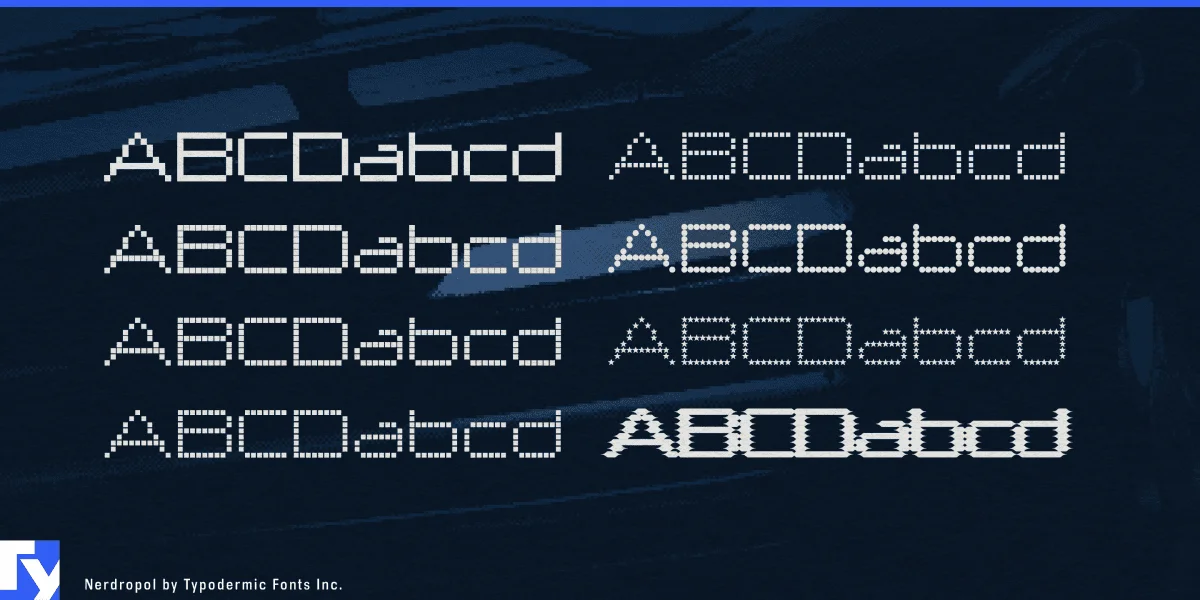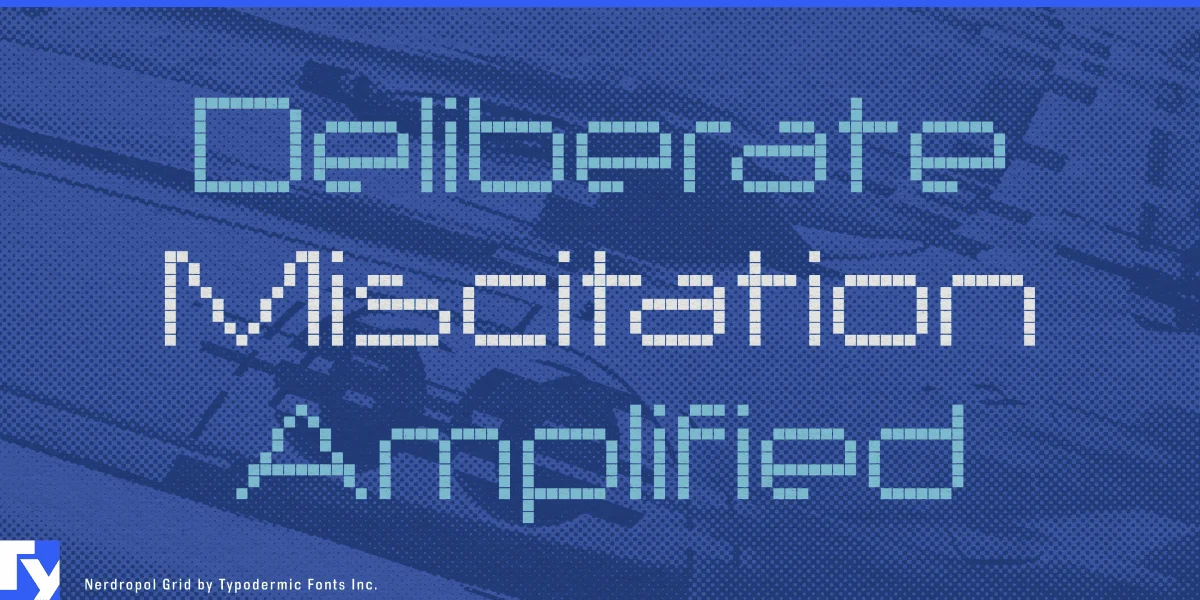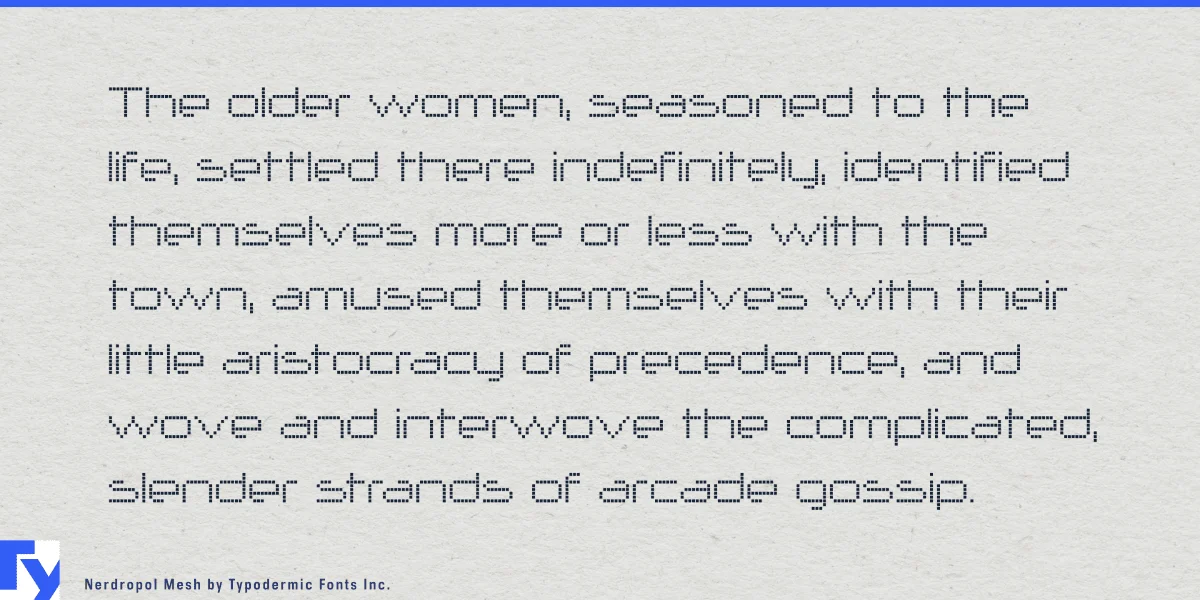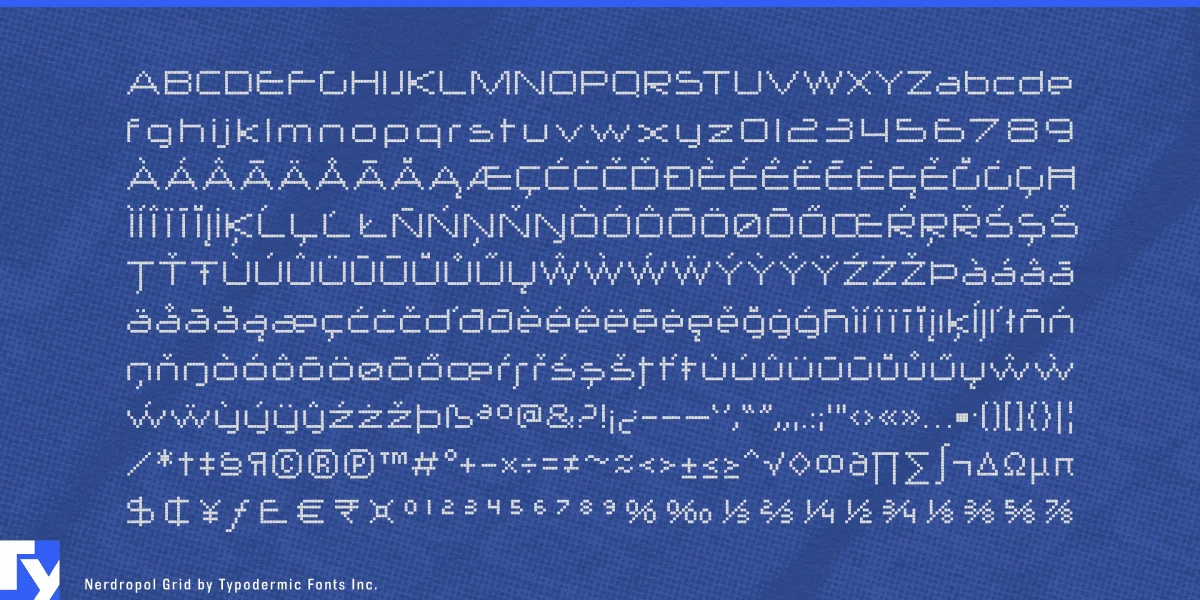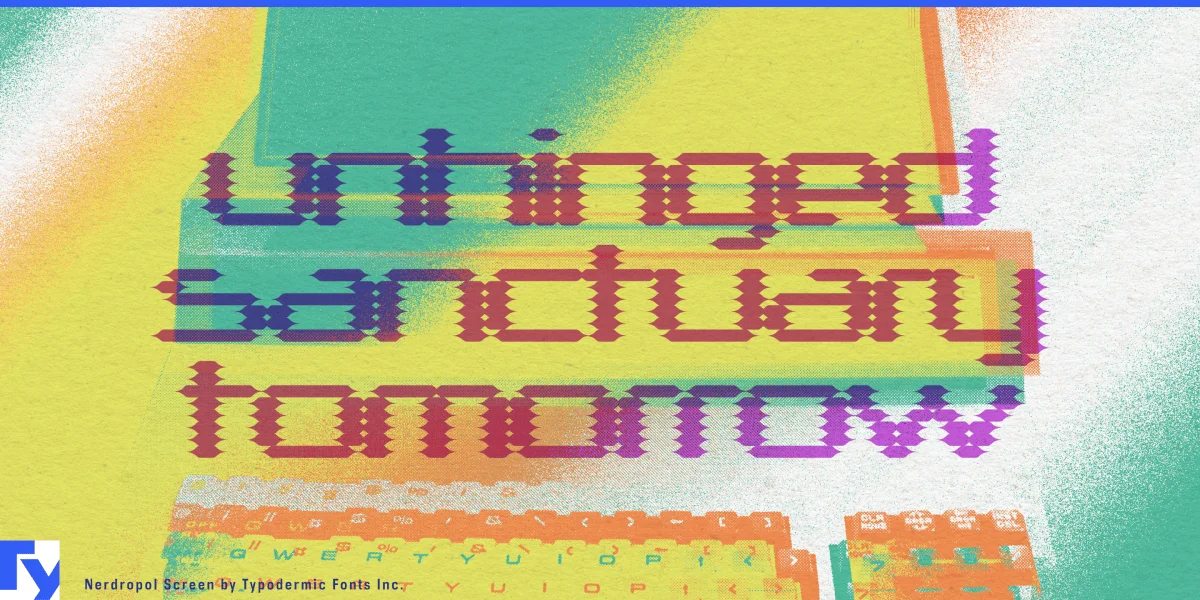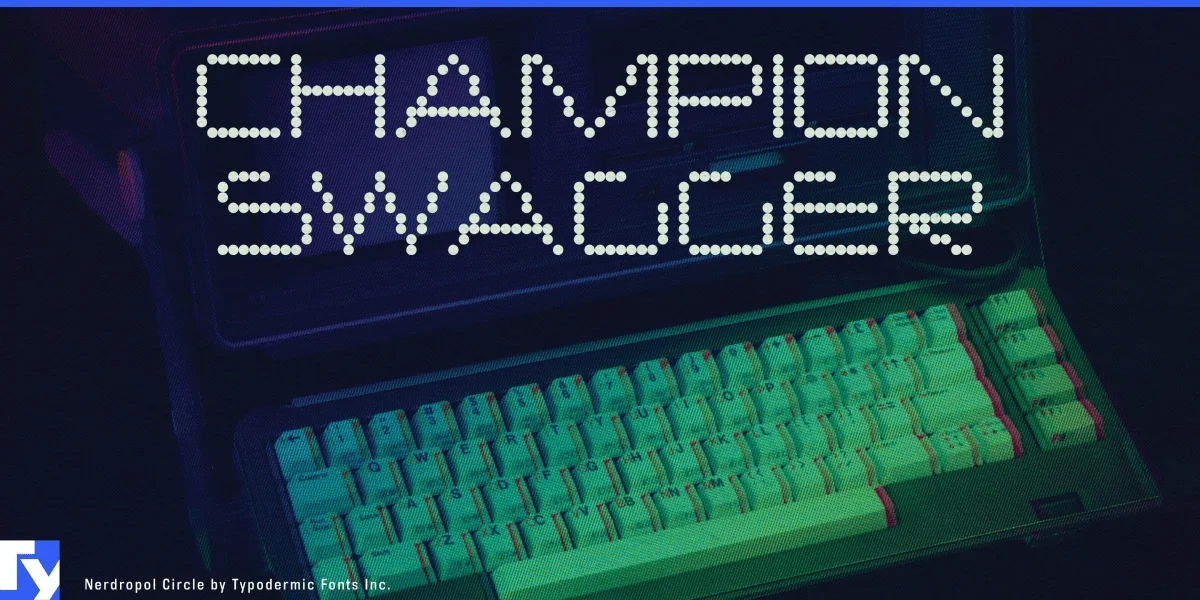
Nerdropol is a pixel typeface built on a strict grid, capturing the crisp rhythm of classic bitmap lettering. Every curve and corner snaps to whole increments, giving it the unmistakable structure of true 8-bit typography.
Different pixel textures let you shift from clean arcade clarity to gridded or screen-like effects, making it ideal for game graphics, synthwave artwork, tech branding, and retro-inspired interfaces. Nerdropol brings authentic pixel energy to modern design.